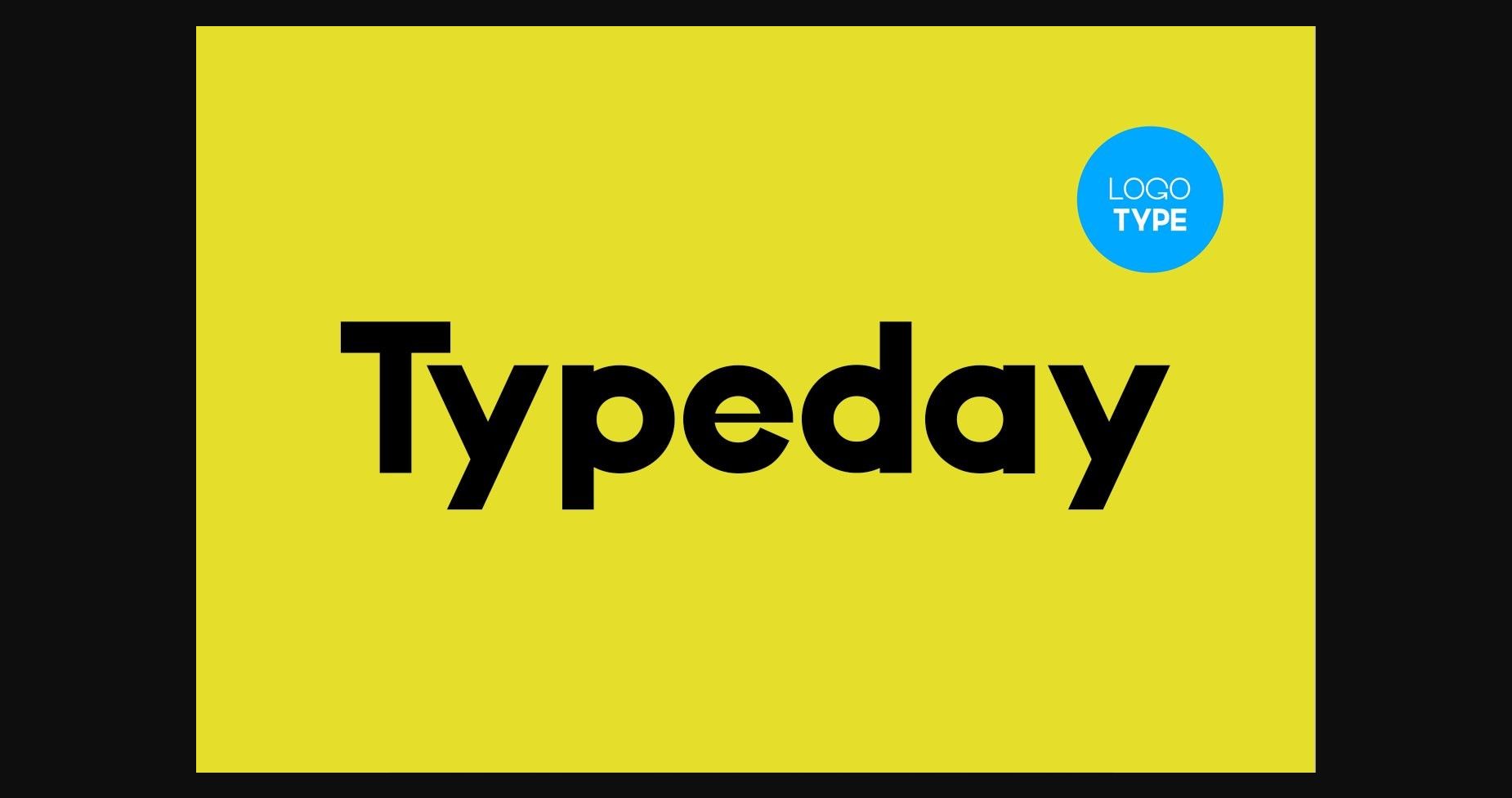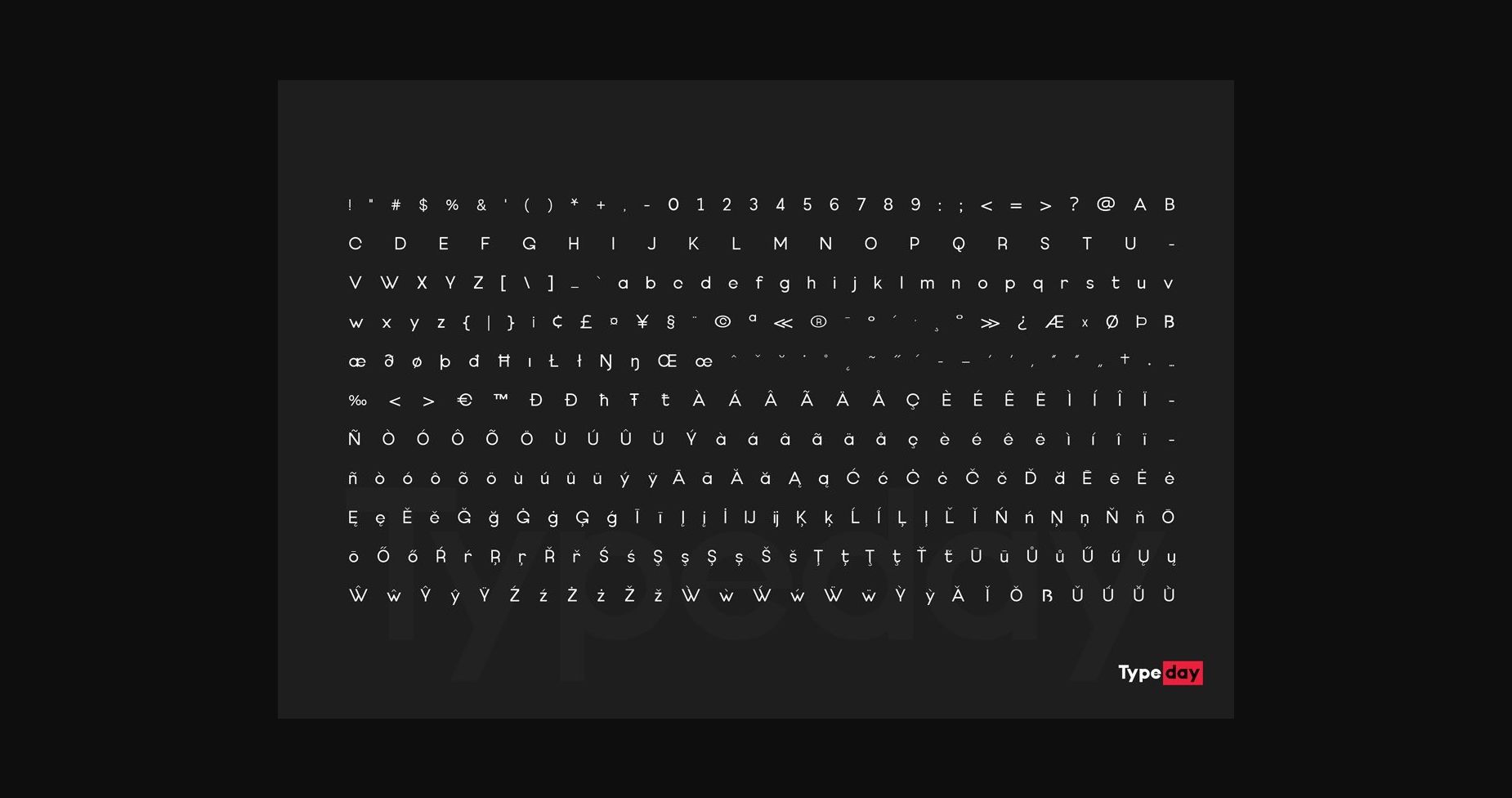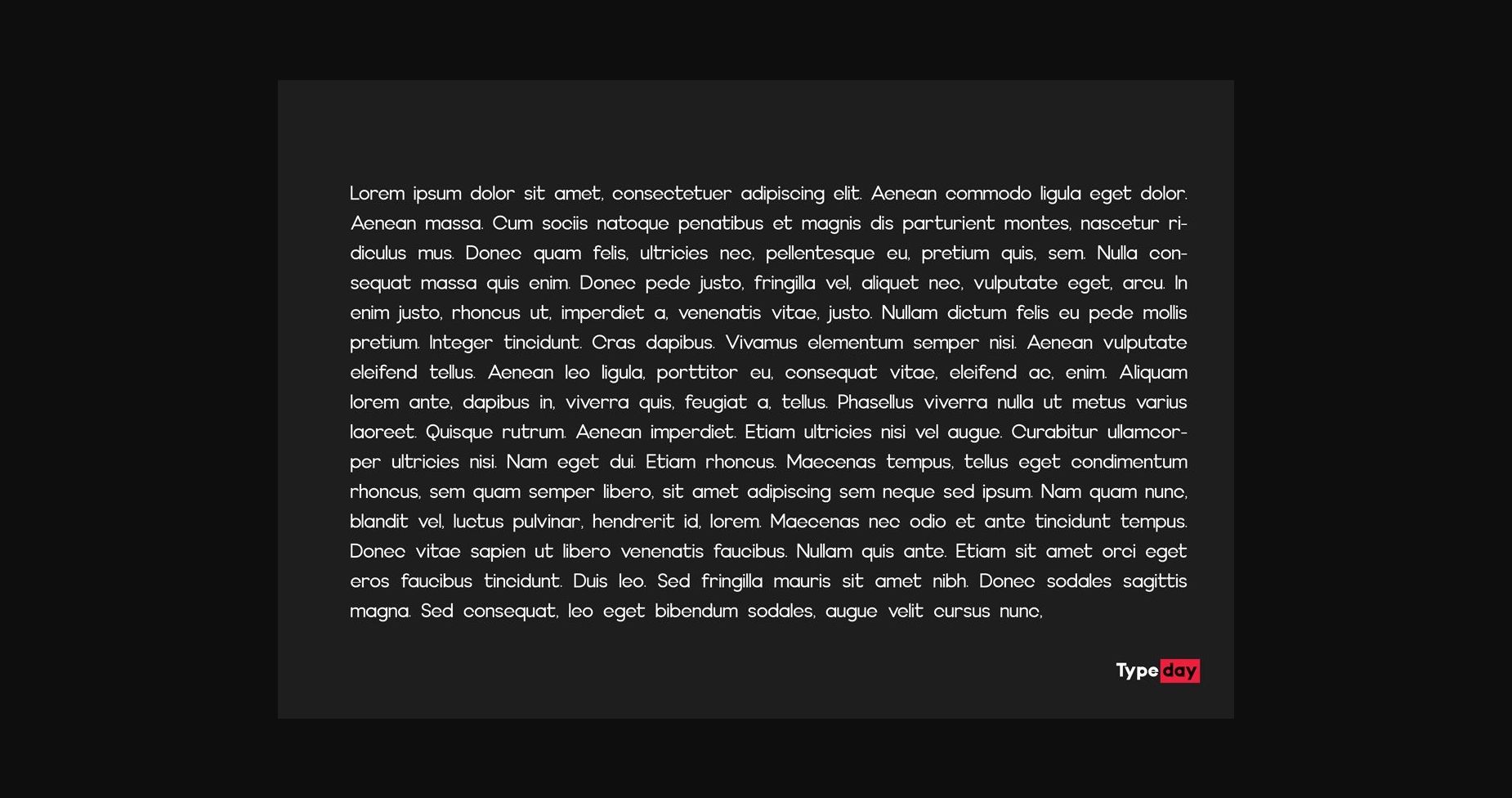
About Typeday Font
This exclusive and attractive sans-serif font is perfect for making an impact. Typeday’s sleek design and clean lines create a modern, sophisticated look that is sure to draw attention. Its versatility makes it suitable for a wide range of applications and its unique design will make it stand out from the crowd.